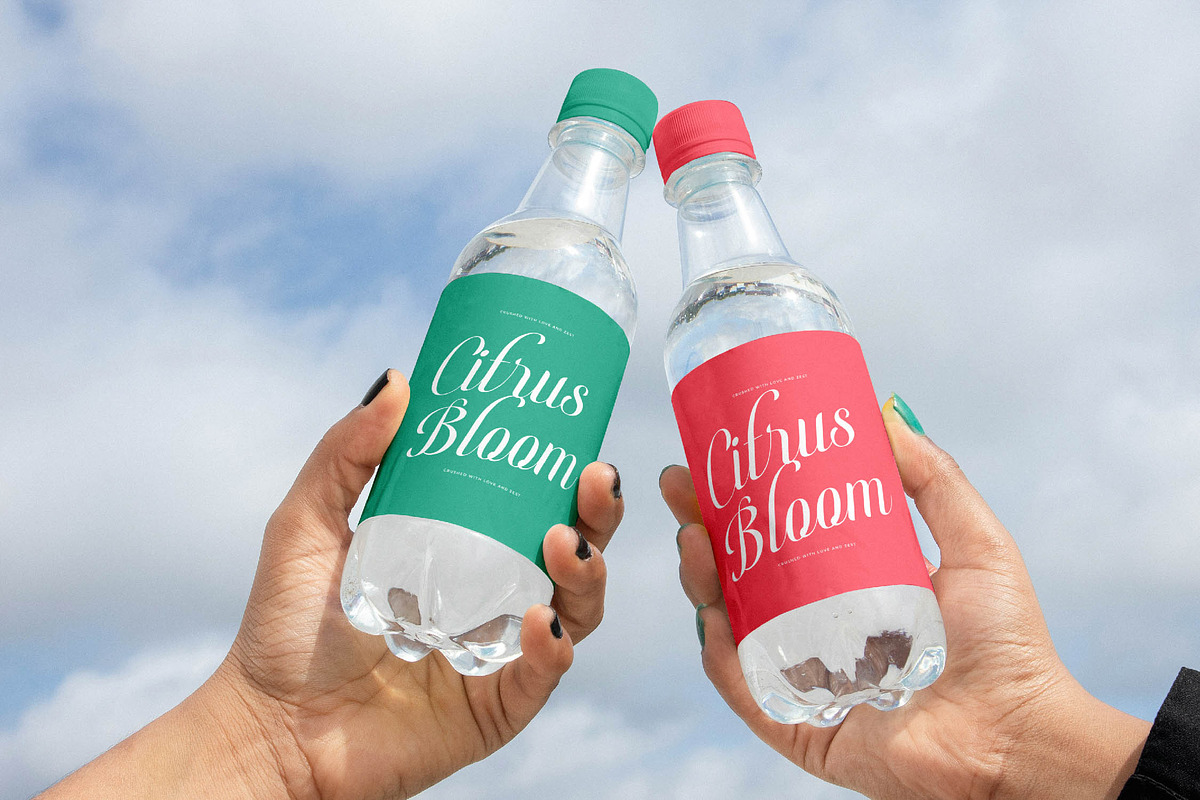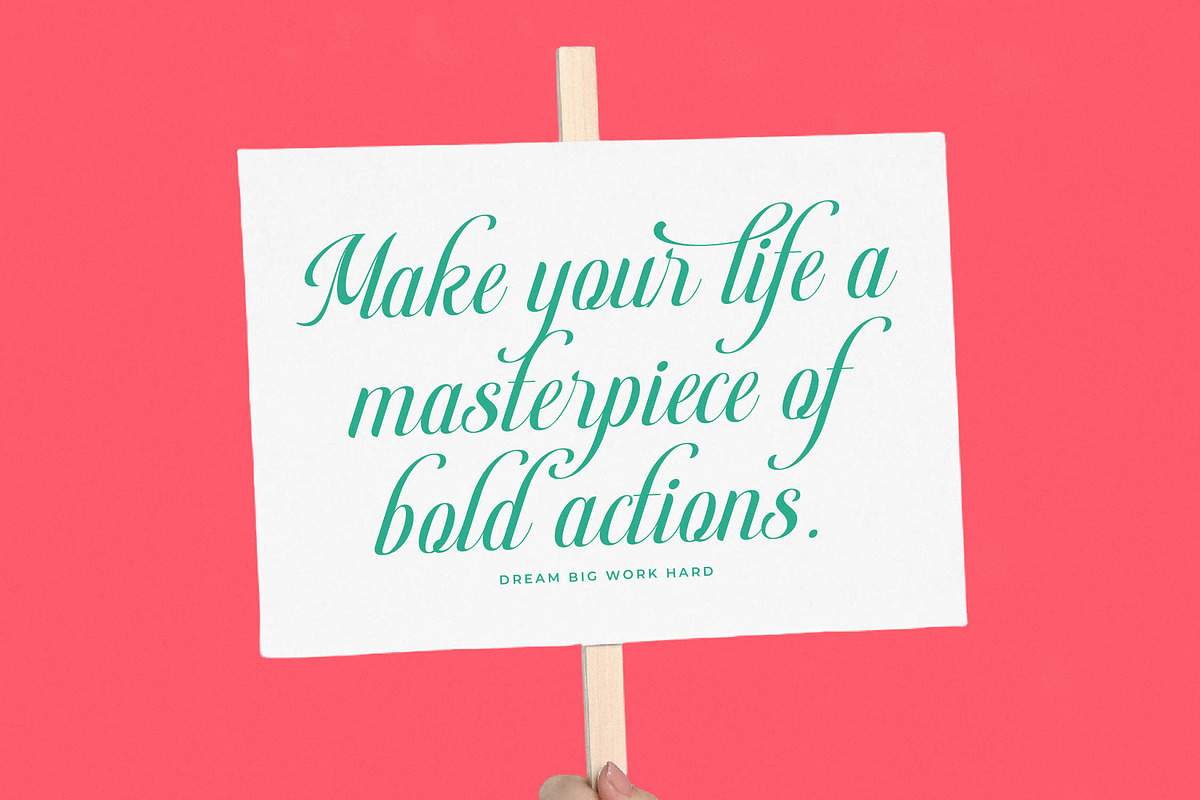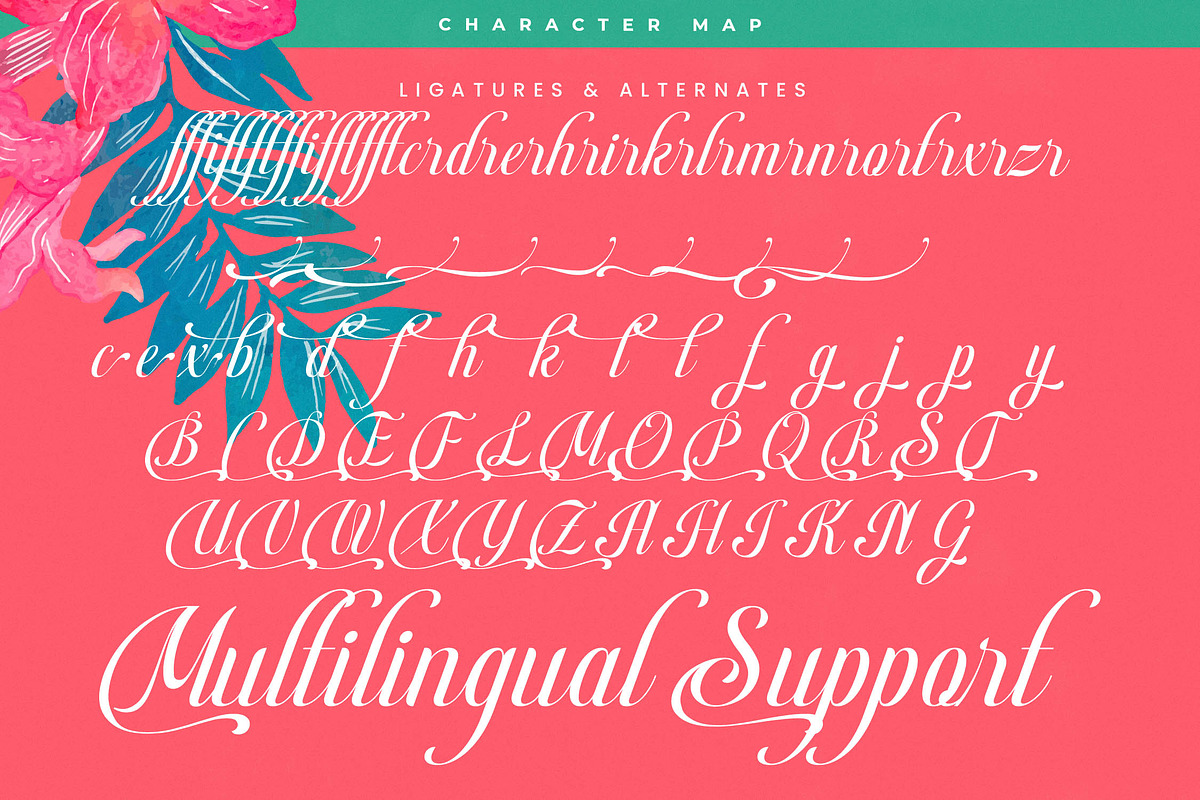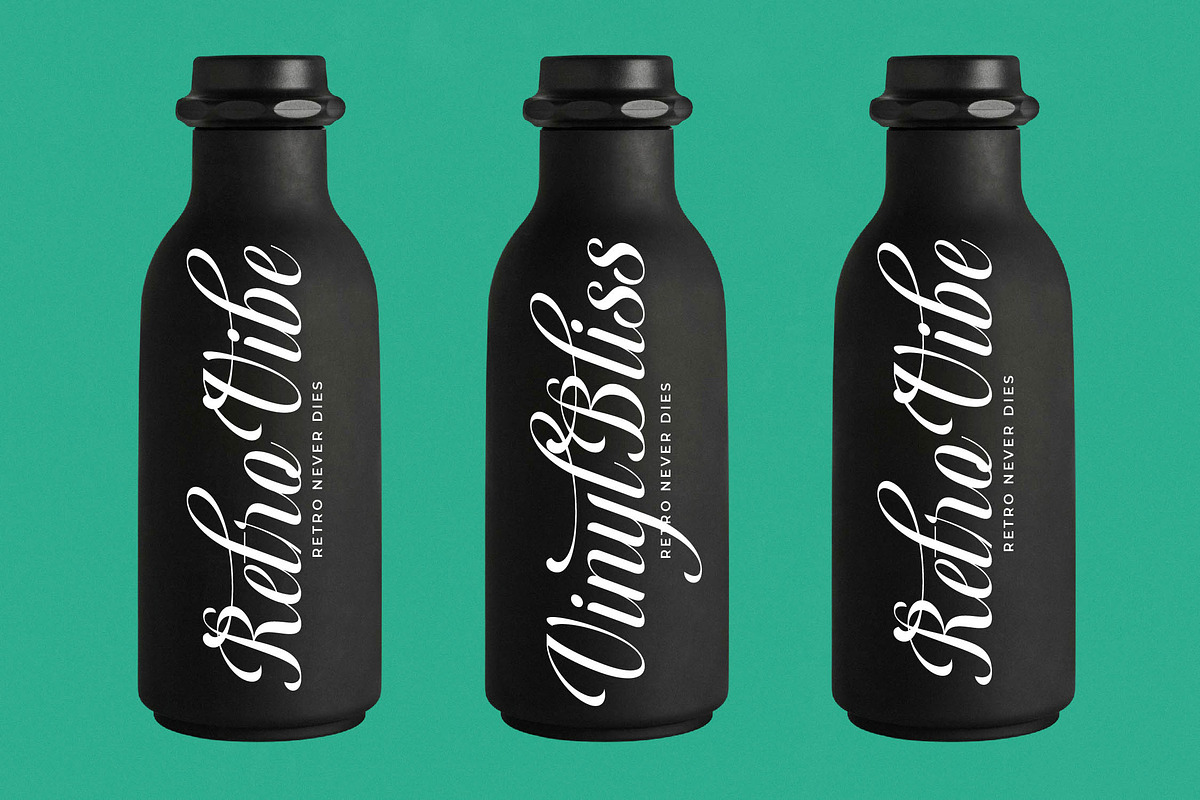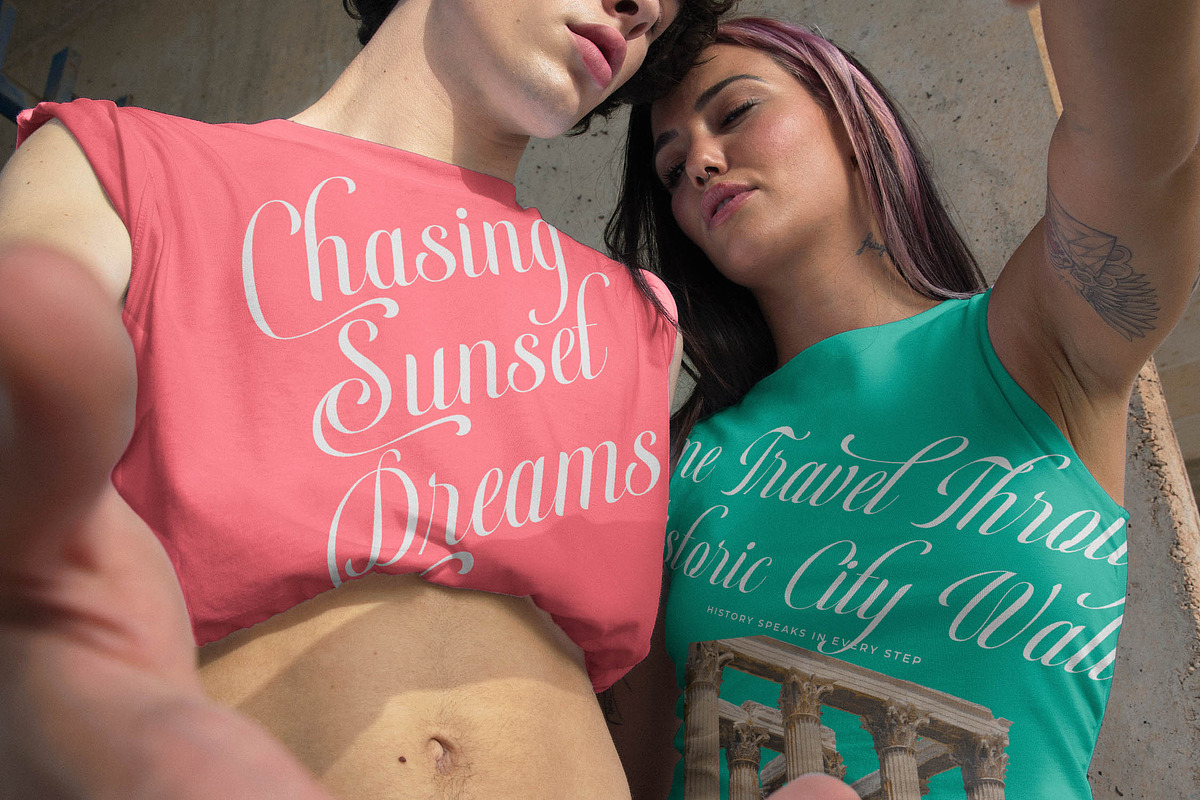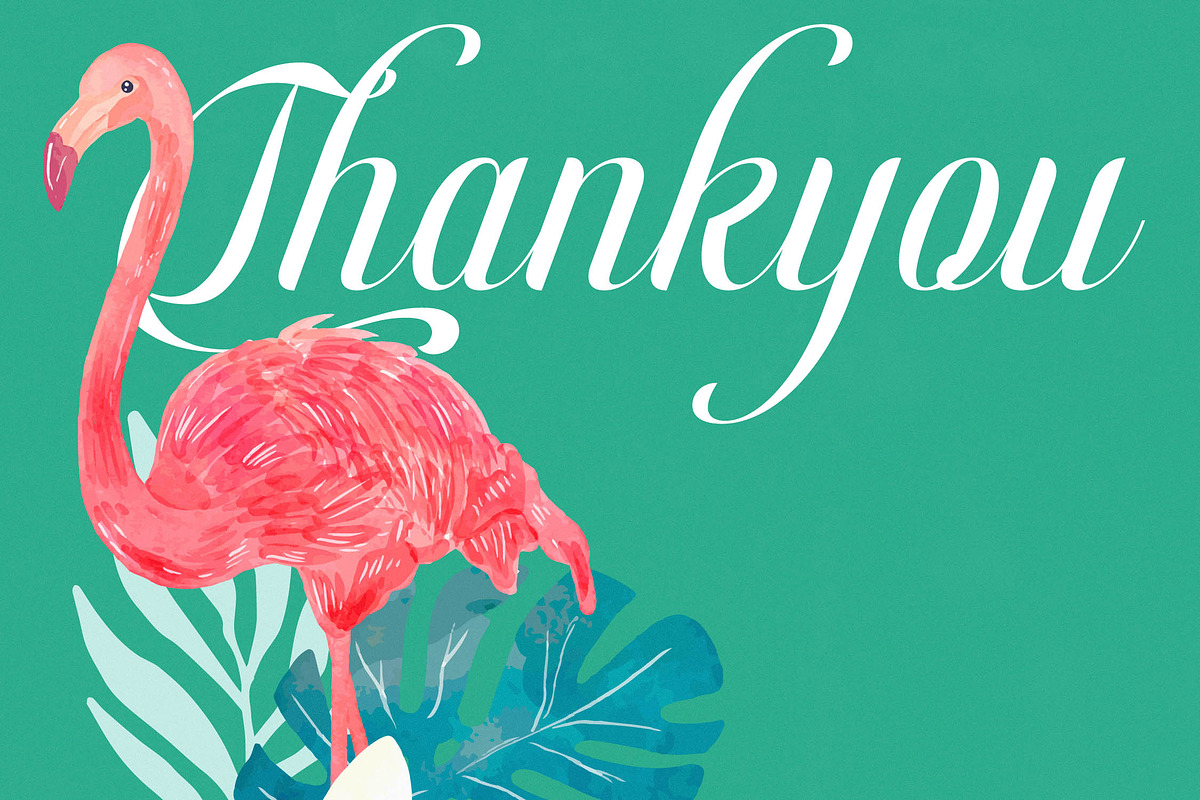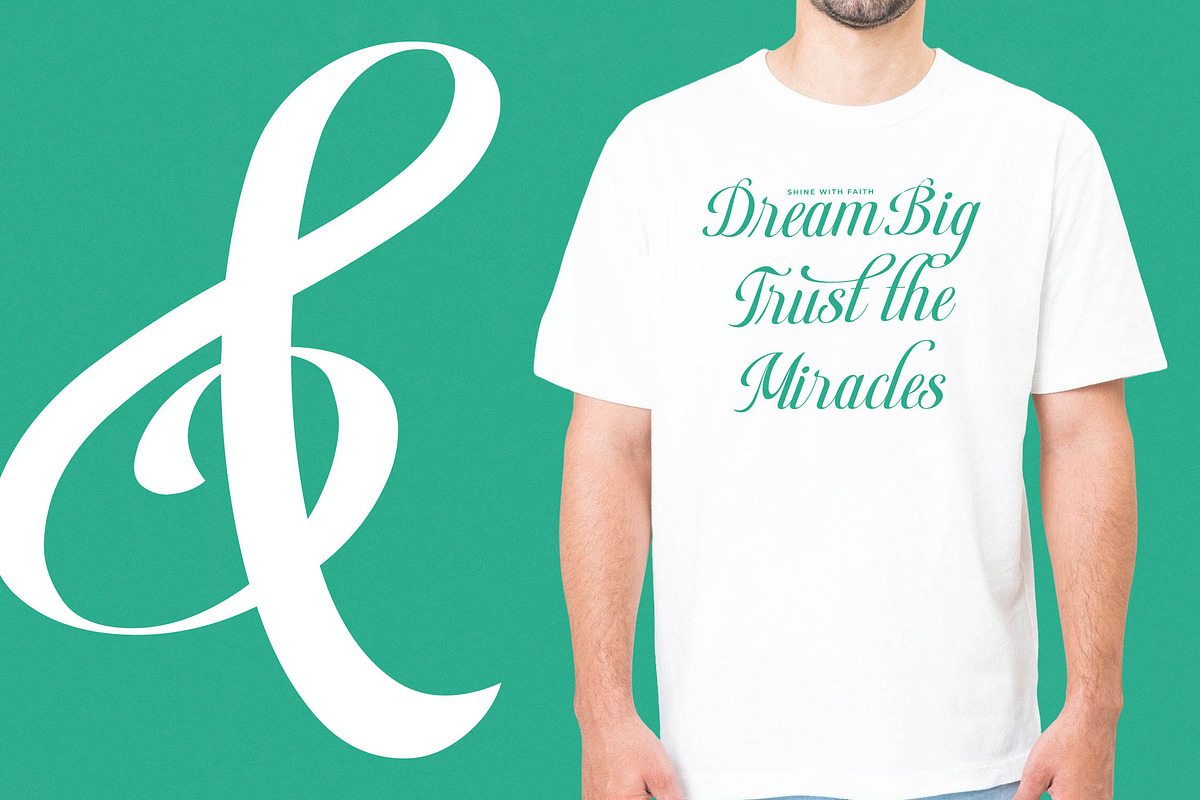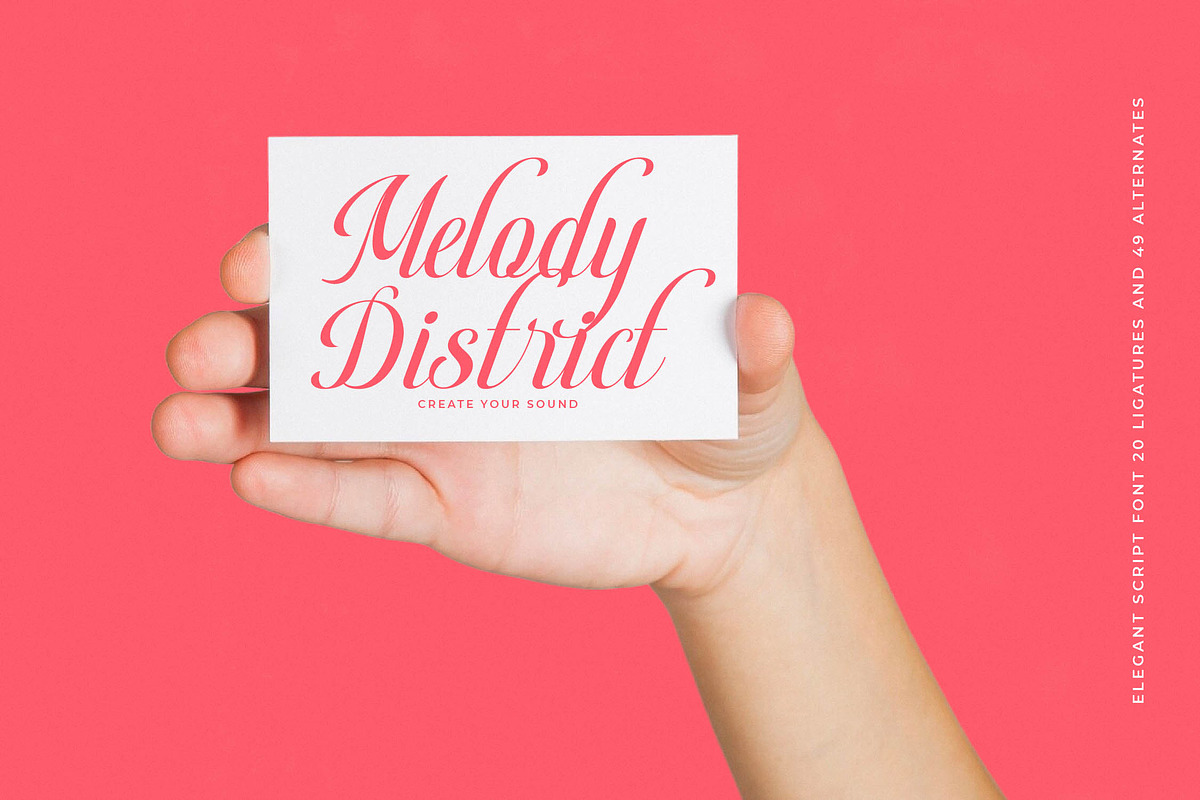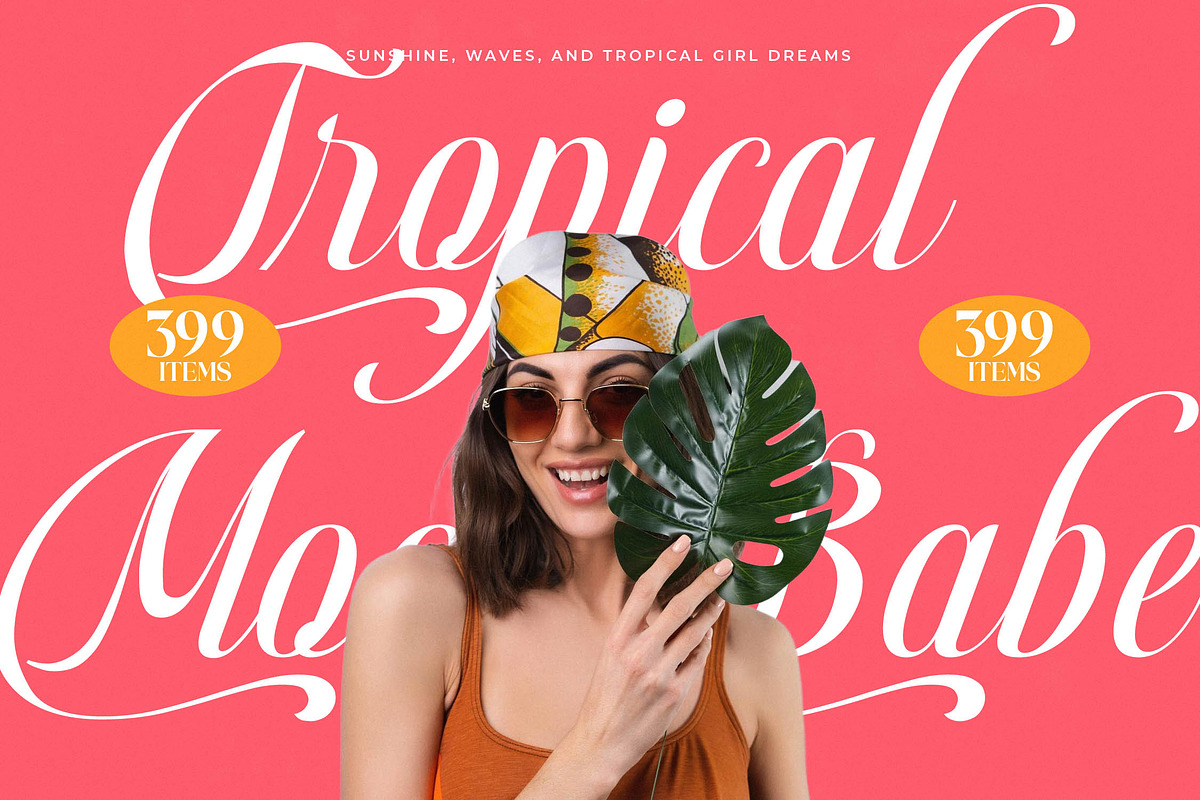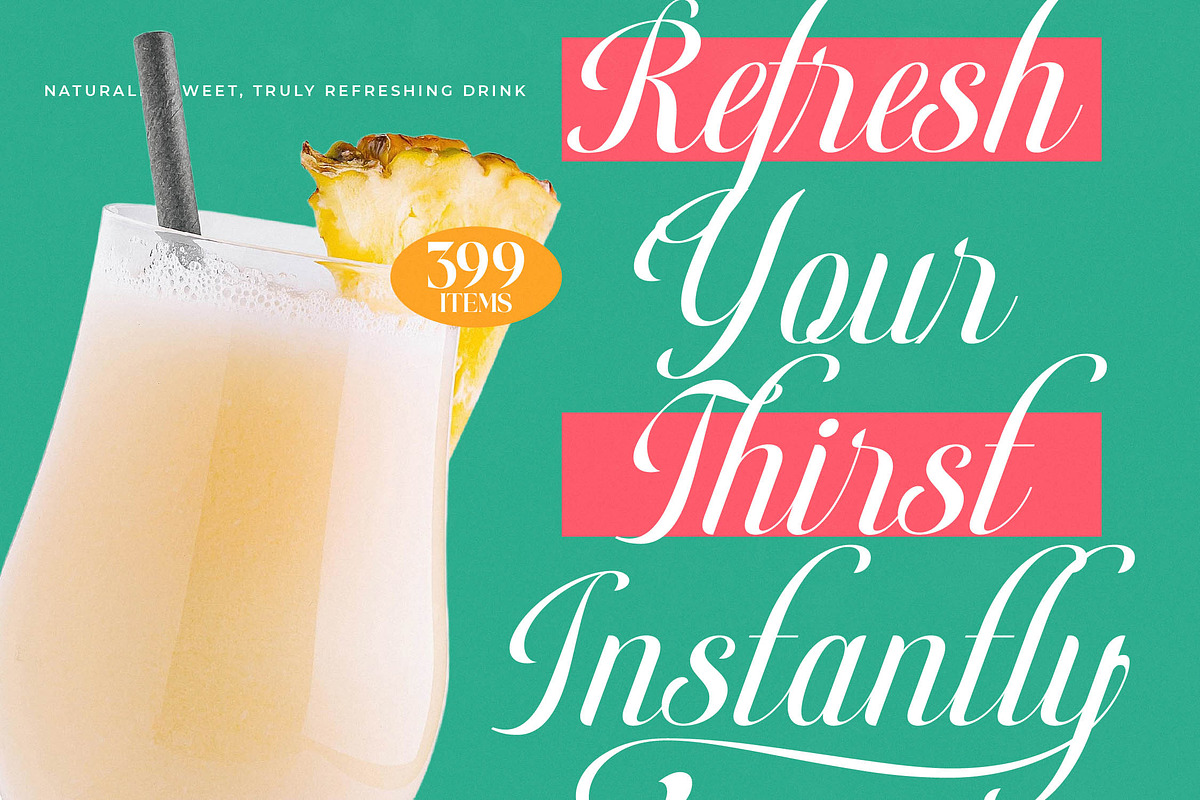
Berishye Elegant Script Font
Discover the breathtaking beauty of Berishye, a masterpiece of fluid motion and timeless grace designed to elevate every creative project into a work of art. This enchanting script captures the essence of sophisticated artistry, blending traditional craftsmanship with a modern, chic sensibility in every stroke.
Inspired by the delicate curves of nature and the rhythmic flow of hand-inked letters, this typeface evokes an atmosphere of tropical luxury and sun-drenched elegance. It brings the vibrant, refined spirit of a coastal retreat directly to your digital canvas, making it perfect for designs that need to breathe with organic life.
While it flows with calligraphic ease, the typeface delivers the prestige of luxury typography and the authoritative presence of a modern serif display. Its high-contrast serif transitions and refined weights make it a standout editorial font that is guaranteed to leave a lasting branding impact on any high-end audience.
Capitalizing on the current modern serif trend for fluid and expressive shapes, this typeface rivals the most popular editorial display fonts in its class. It offers the kind of character-driven typography that is currently dominating premium design markets, ensuring your work stays ahead of contemporary aesthetic curves.
This versatile script is an ideal choice for high-profile logo design, comprehensive branding identities, and high-fashion editorial layouts. Designers will find it indispensable for luxury packaging, romantic wedding stationery suites, and chic fashion labels looking for a signature touch.
The font package is exceptionally feature-rich, including a professional array of ligatures and alternates to help you customize every word. Beautifully crafted swashes, full multilingual support, and essential international characters ensure global versatility and technical excellence for all your professional design needs.
- Ligature 20 Alternate 49